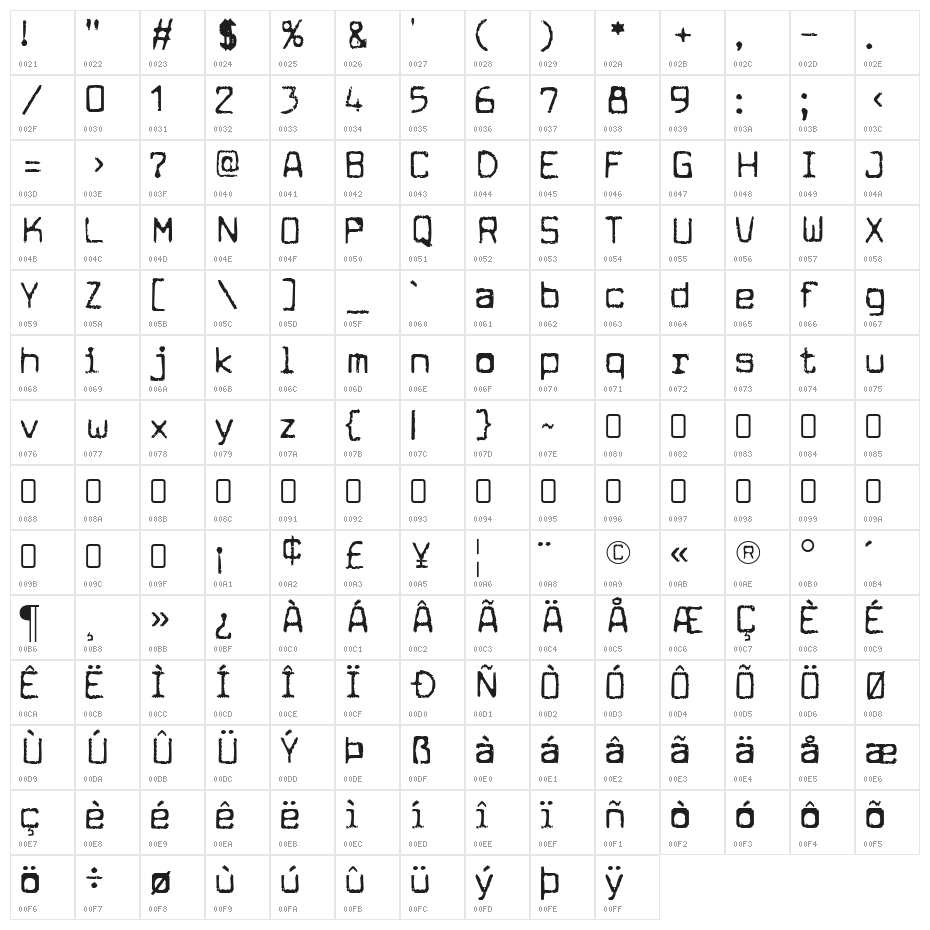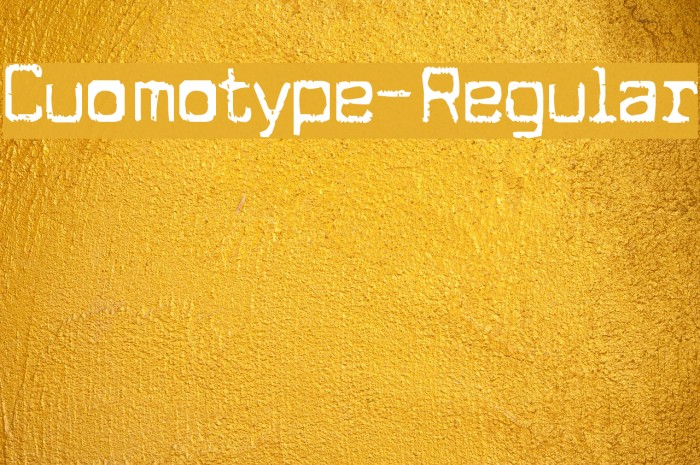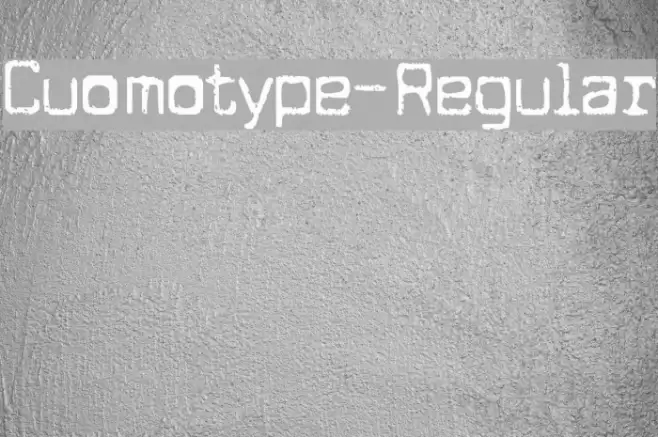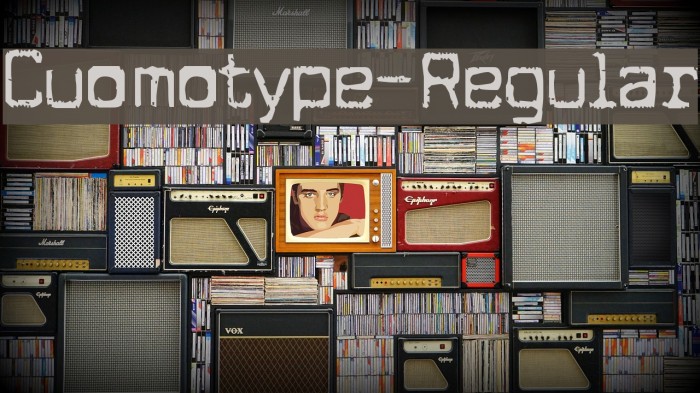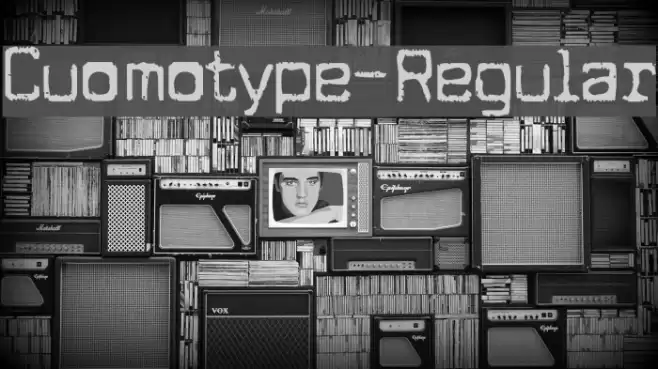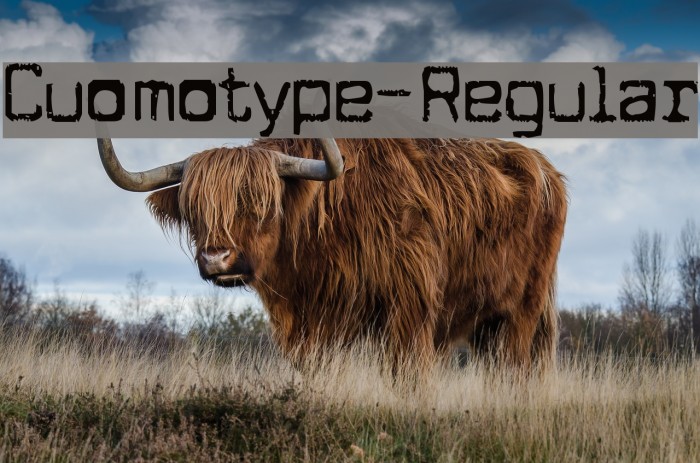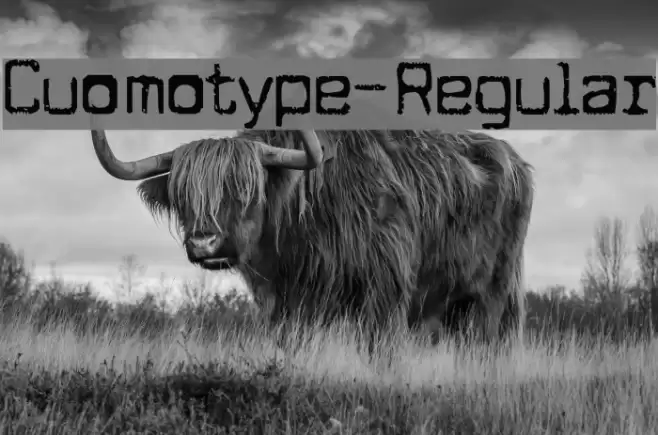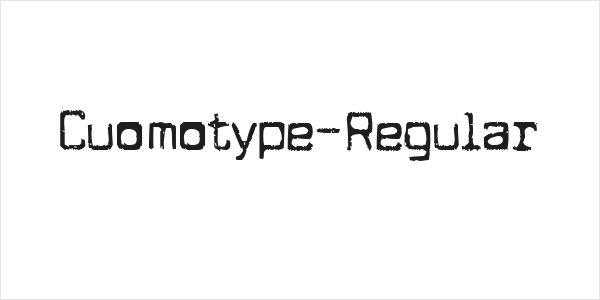
Cuomotype-Regular Font
Cuomotype-Regular Description
This font features a rugged and distressed appearance, with irregular edges and a hand-crafted feel. The characters are bold and impactful, making them stand out with a unique, artistic flair. The uppercase and lowercase letters maintain a consistent style, while the numbers and special characters complement the overall design. The font's rough texture gives it a dynamic and edgy look, suitable for projects that require a bold statement. Its distinctive style is perfect for creating eye-catching headlines or artistic designs.
Proposed ProjectsIdeal for posters, album covers, branding, and any project needing a bold, artistic touch.